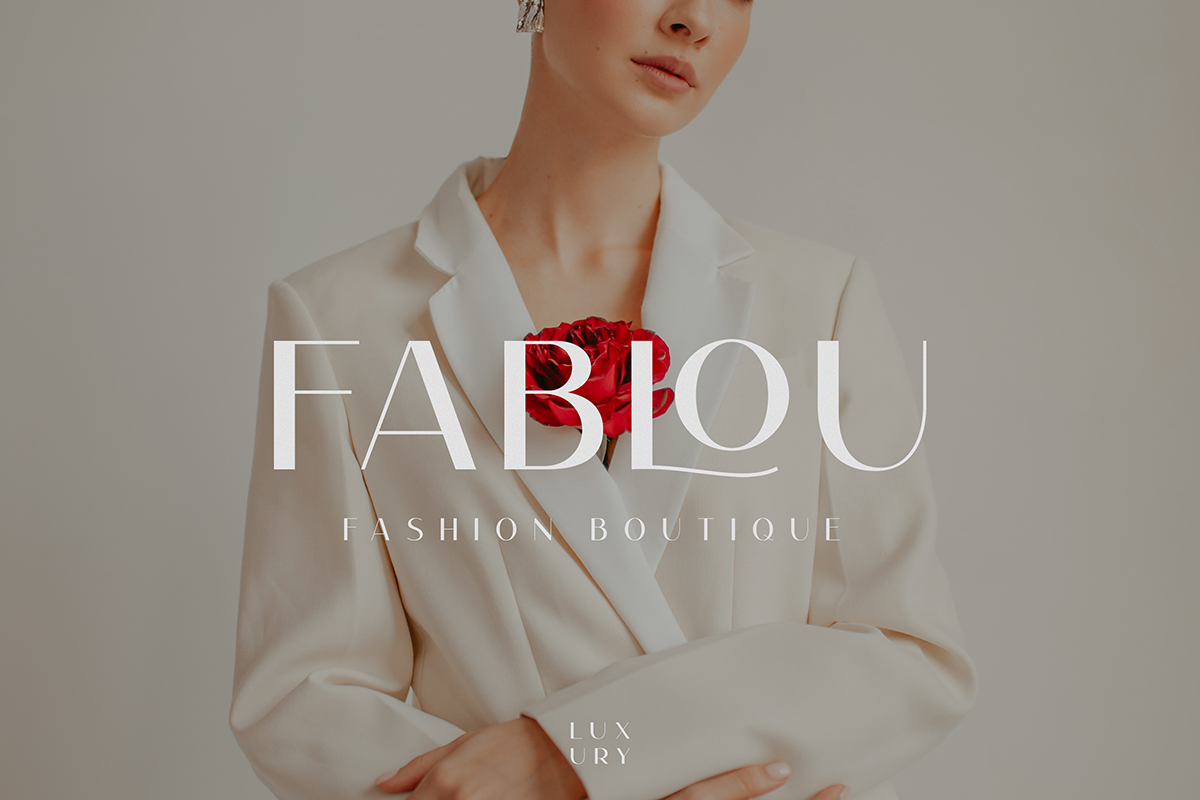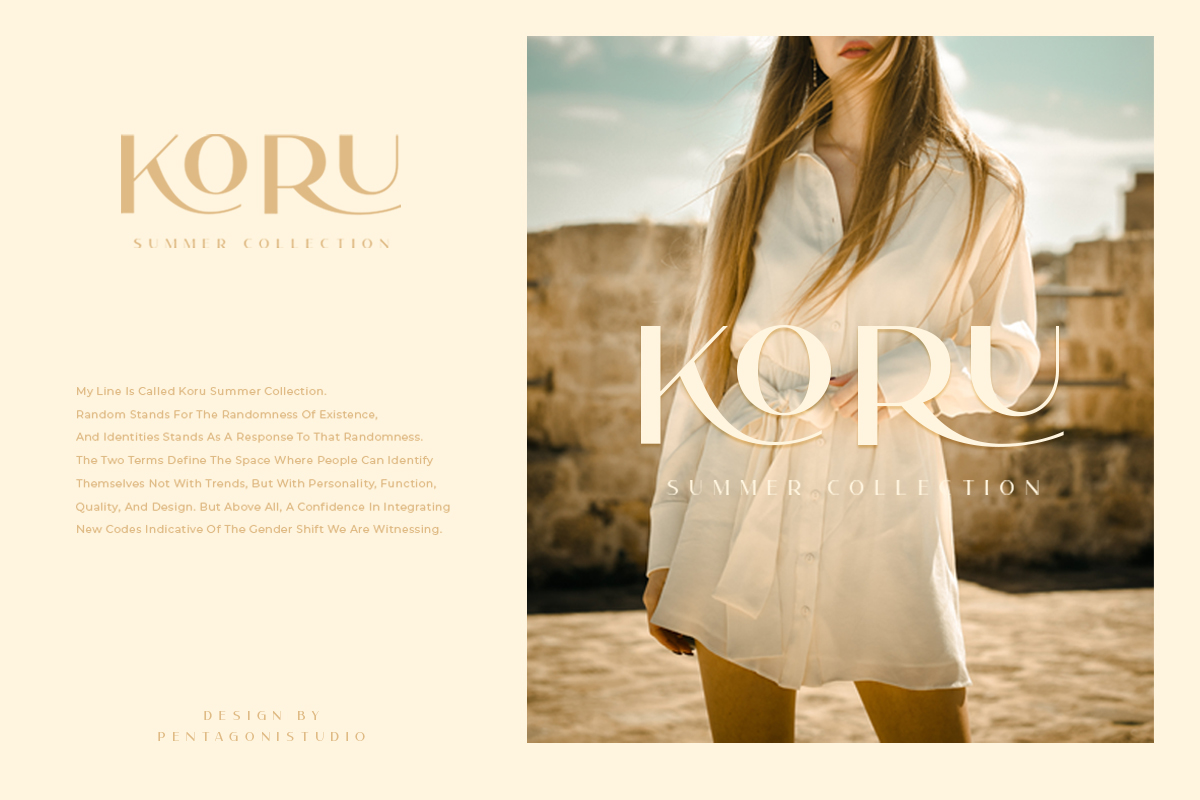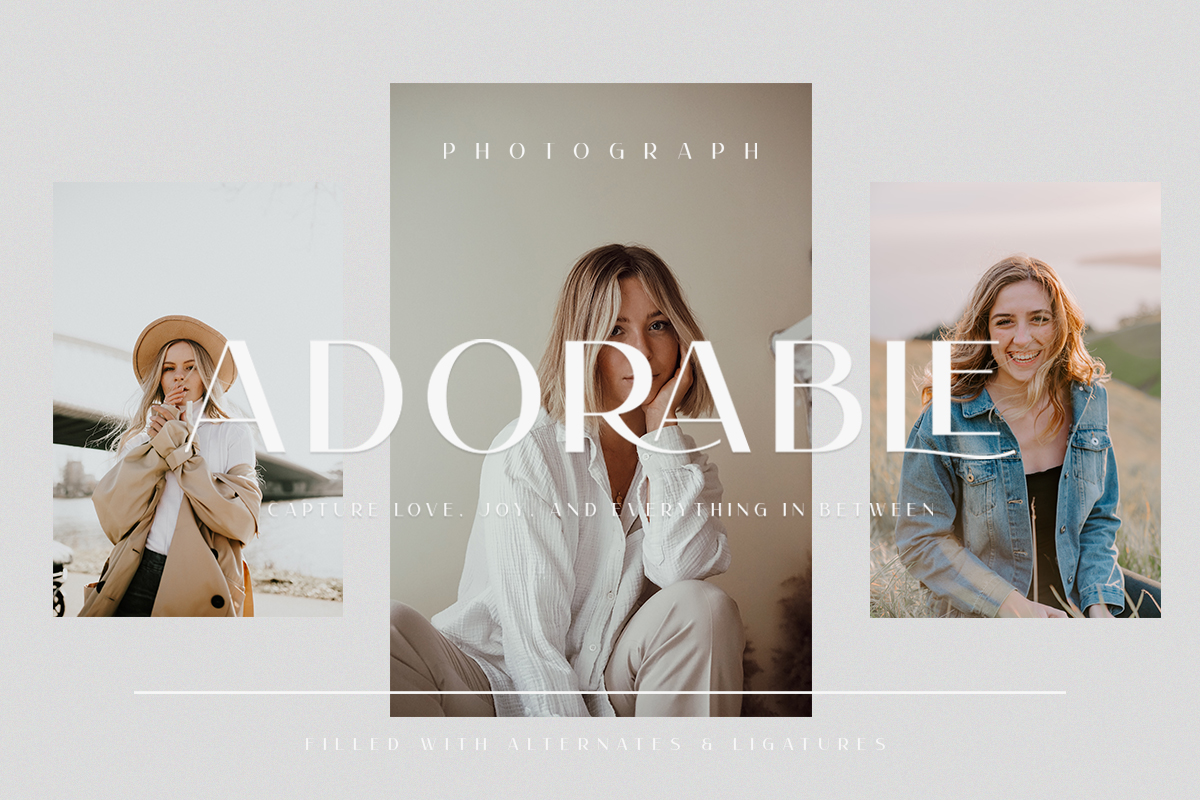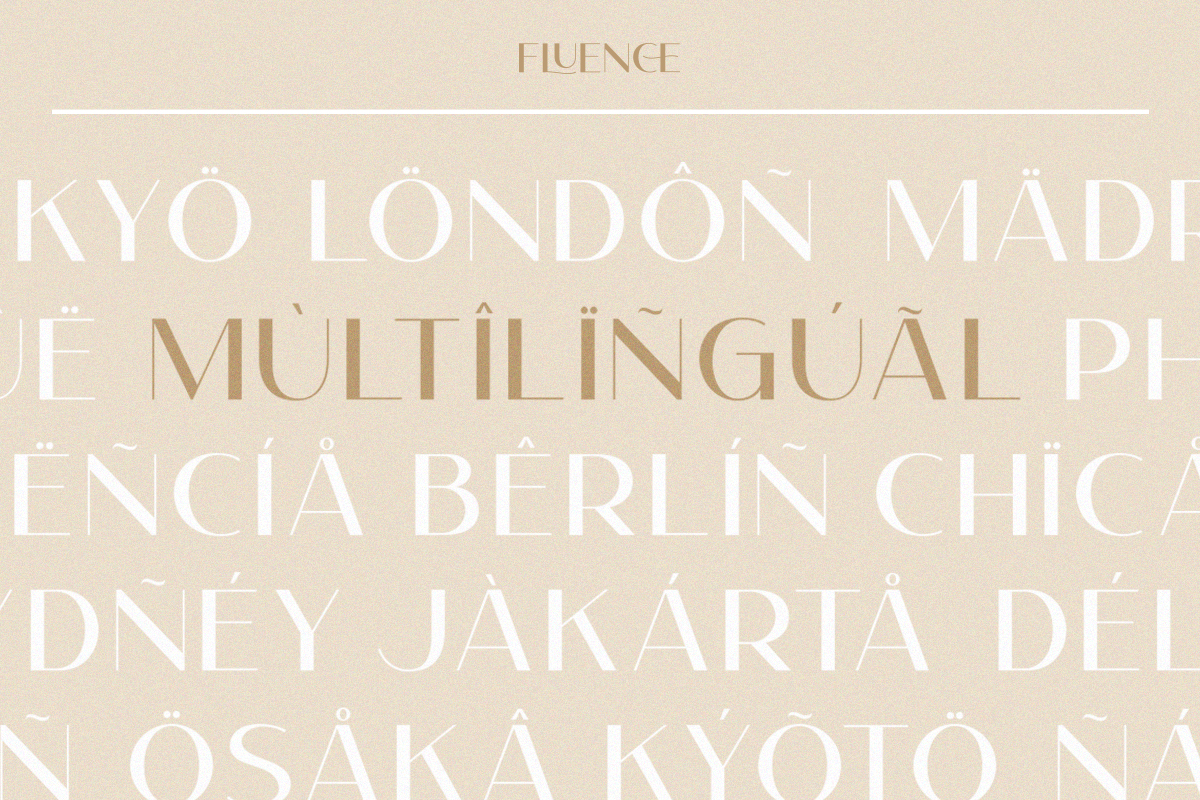
Fluence Font
Fluence Sans Serif Font
This Font Is An Elegant Sans Serif Font Inspired By Feminine and Elegant Character. Fluence is perfect for web design, branding, logos, invitations, magazines, and more.